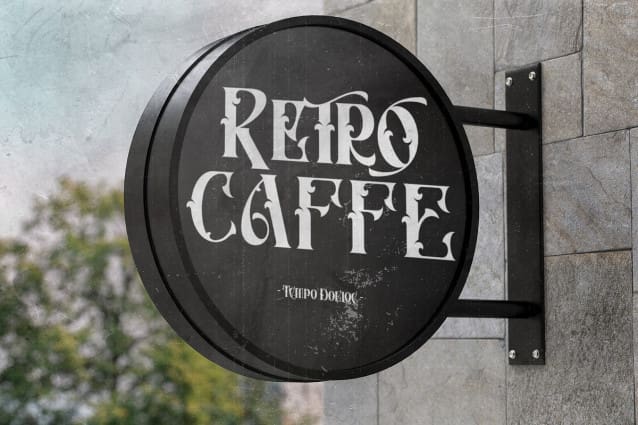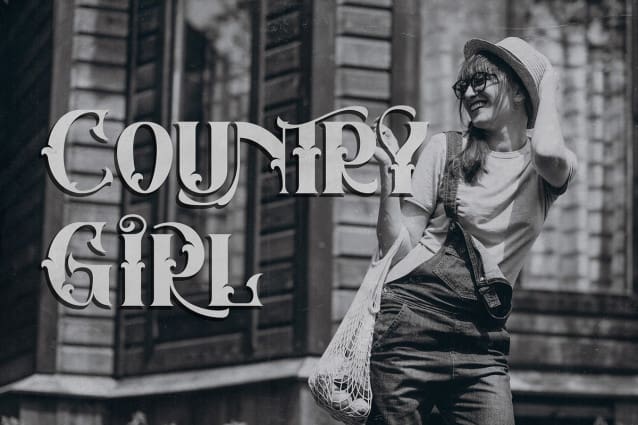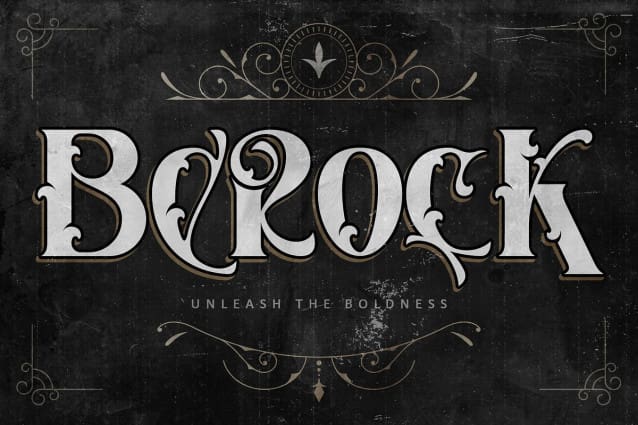
Berock Font
Berock Font, a font that exudes style and elegance with its vintage serif design. Versatile and clean, Berock Font is perfect for a wide range of designs, effortlessly elevating them to new heights. With alternate characters and ligatures, you can easily create stunning typography designs. Ideal for luxury logos, branding, editorial design, magazines, packaging, posters, movies, art galleries, and more, Berock offers endless possibilities. This font is PUA encoded, ensuring easy access to all glyphs.